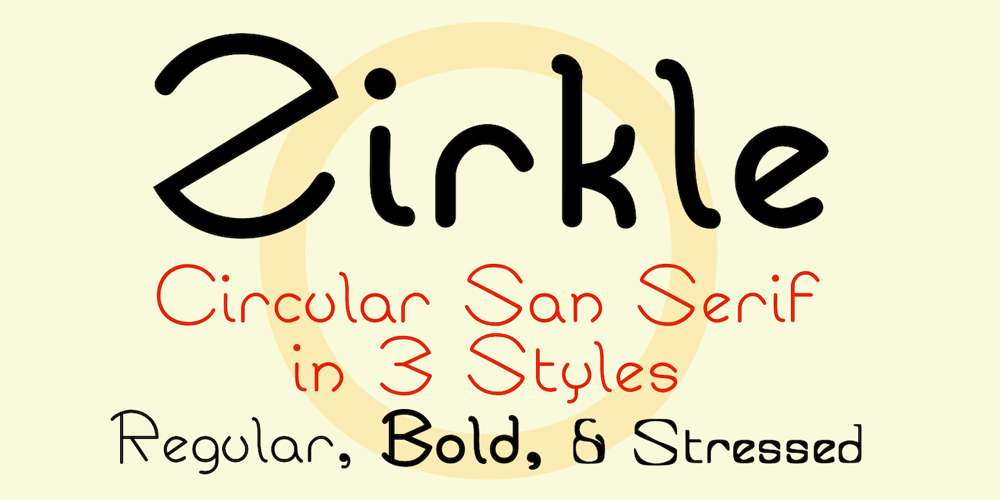
Zirkle
Zirkle font
Zirkle Font Family was designed by Robert Schenk and published by Ingrimayne Type. Zirkle contains 3 styles and family package options. Zirkle is a monoline font in which the upper-case letters were designed from circles or bits of circles, with interior straight lines. It was the first font I designed in Fontographer when Fontographer was still in version 2 and the most advanced Macintosh was the Macintosh II. I have heard from people who like it, but it was designed not to meet some need but to play with the geometry of circle-based letters. ZirkStressed is a “squared” version that was the result of playing with a font distortion program, which in this case produced a result that seemed interesting.